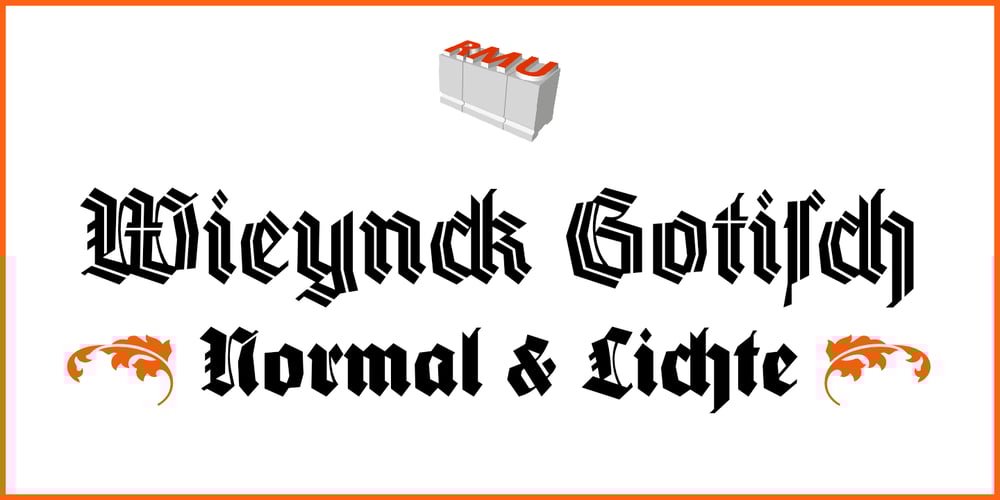
Wieynck Gotisch
Wieynck Gotisch Font Family was designed by Ralph M. Unger and published by RMU. Wieynck Gotisch contains 2 styles and family package options. Wieynck Gotisch, a 1920s font family created by Heinrich Wieynck, was completely redrawn and redesigned for modern usage. Use this remarkable and eye-catching fonts in an appropriate context. This font contains a bunch of useful ligatures, and by typing ‘N’, ‘o’ and period plus activating the OT feature Ordinals you get an oldstyle numbersign. The round ‚s‘ lies on the #-key.